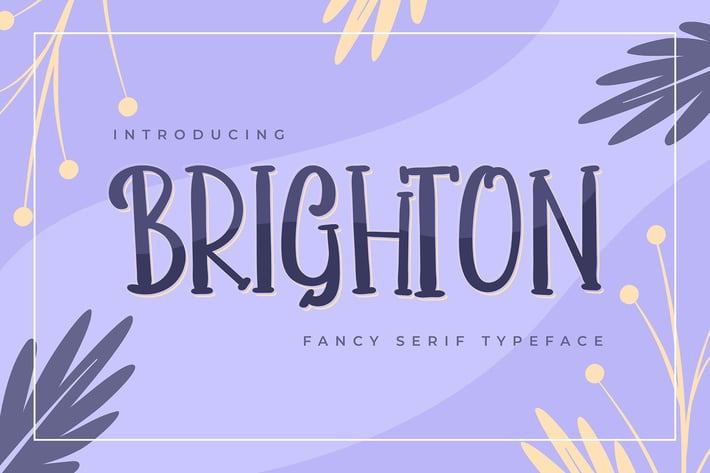
Brighton | Fancy Serif Typeface
Brighton | Fancy Serif Typeface with a calligraphy style, So beautiful on invitation like greeting cards, branding materials, business cards, quotes, posters, and more!